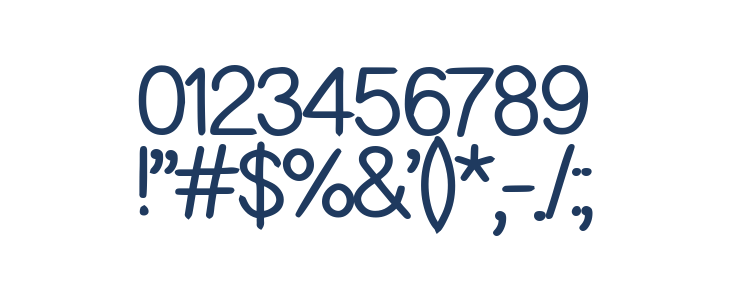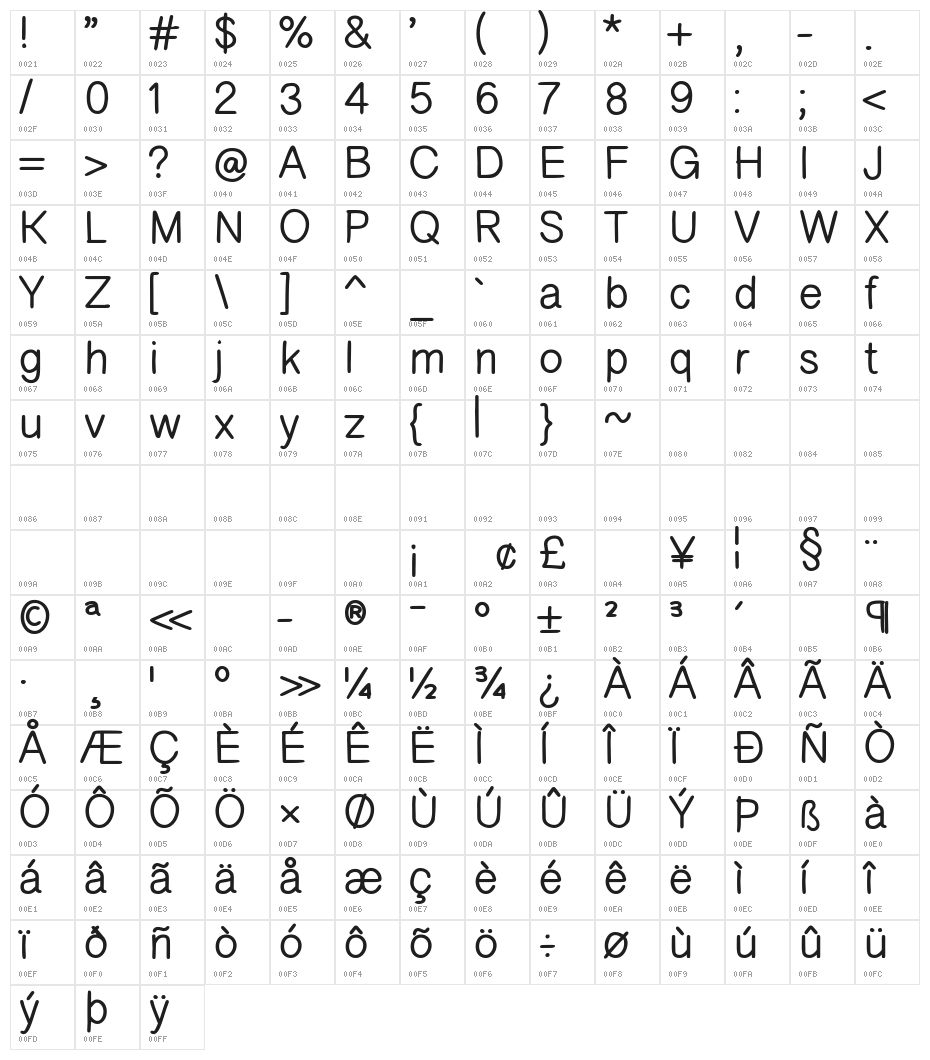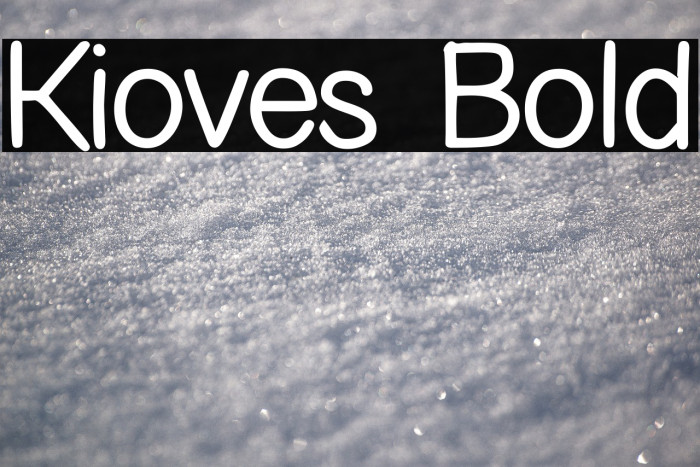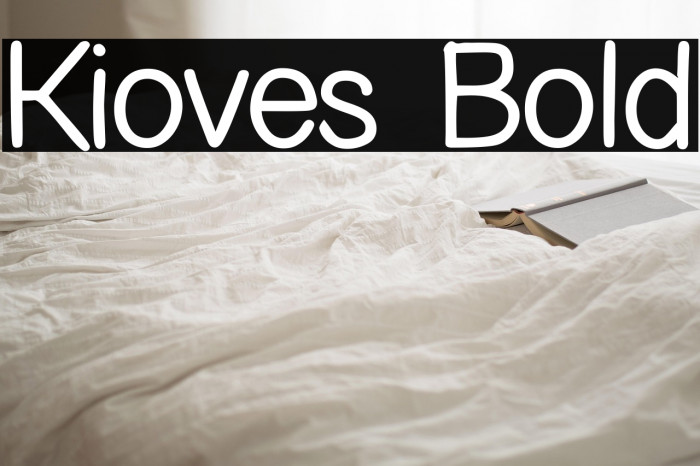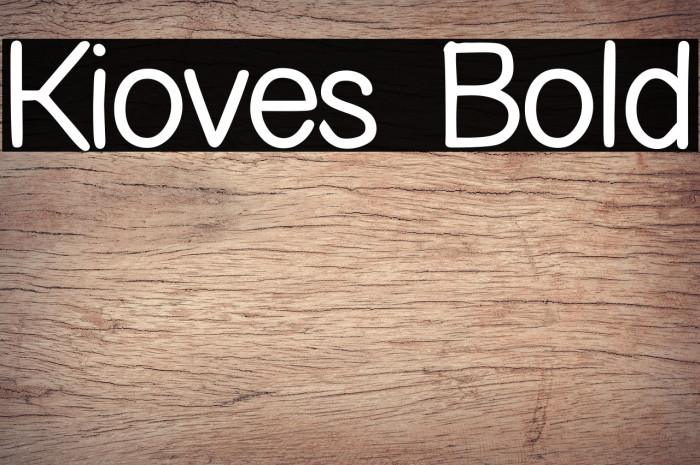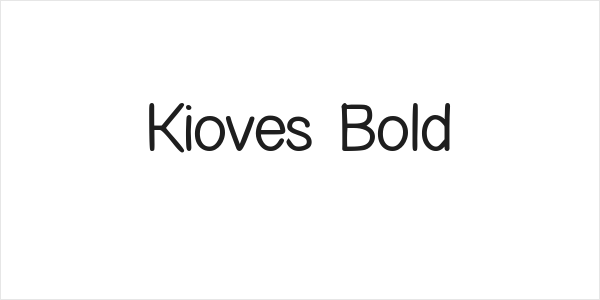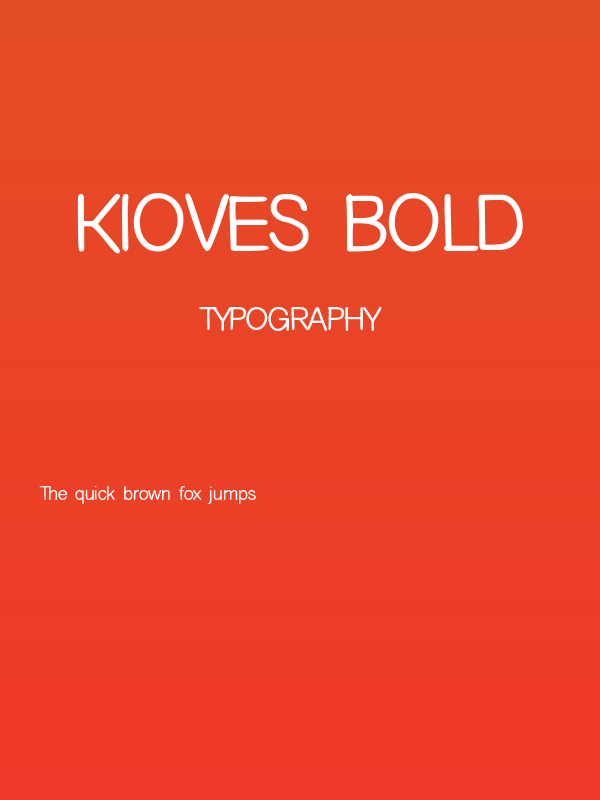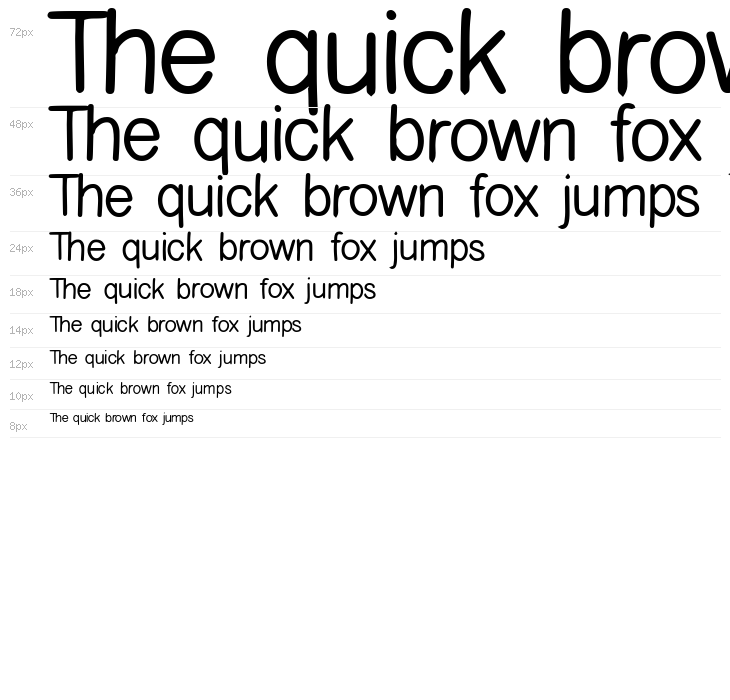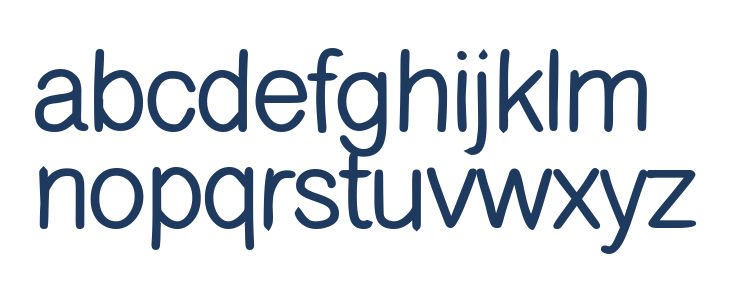
Kioves Bold Font
Kioves Bold Description
This font features a bold, rounded sans-serif style with smooth curves and a friendly appearance. The characters are evenly weighted, providing a consistent and harmonious look across both uppercase and lowercase letters. The numerals are clear and legible, matching the overall style of the alphabet. Special characters are well-integrated, maintaining the font's approachable and modern aesthetic. The rounded edges contribute to a soft and inviting feel, making it suitable for a variety of design applications.
| Use Case | Headlines, Logos, Digital interfaces |
| Proposed Projects | Ideal for branding, advertising, children's books, and digital interfaces where a welcoming and approachable tone is desired. |